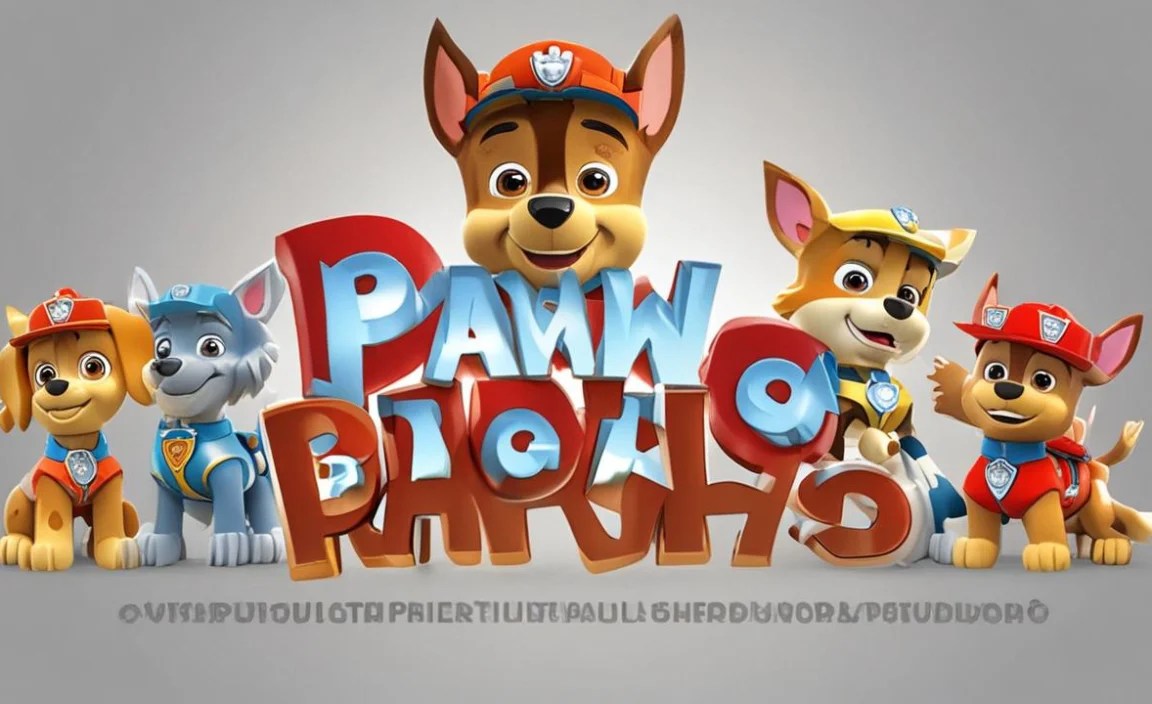
PAW Patrol, a Canadian animated TV series created by Keith Chapman, premiered on August 12, 2013, on Nickelodeon in the United States and on TVOKids in Canada on September 2, 2013.
The PAW Patrol logo features two distinct fonts. The “PAW” section uses a custom comic-style font, though similar alternatives include Grobold and Minnie. For a closer match, you can explore comic and cartoon font collections. The “PATROL” section likely uses Aachen, a bold slab serif font designed by Alan Meeks.
Paw Patrol Font Information
| Name | Paw Patrol Font |
| Style | Display |
| Designer | Based on the logo from the Paw Patrol TV series (original designer unknown) |
| Type | Cartoon Display Font |
Where Paw Patrol Font Is in Use
The Paw Patrol Font fits perfectly into playful and child-oriented design projects. Its vibrant and fun aesthetic makes it a favorite in the following applications:
- Children’s Merchandise
- Party Invitations
- Book Covers
- Promotional Posters
- TV Show Branding
- School Projects and Crafts
Paw Patrol Font Alternative
- Comic Sans MS
- KG Primary Penmanship
- Doodle Jump
- Baloo
- Fredoka One
- Luckiest Guy
- Bangers
- Varela Round
- Sniglet
- Bubblegum Sans
1. When Was The Paw Patrol Font Created?
The font gained recognition with the launch of the Paw Patrol series in 2013.
2. What Free Font Resembles The Paw Patrol Font?
Comica BD and Luckiest Guy resemble the Paw Patrol Font, offering similar cartoonish and playful elements.
4. Why Do Designers Choose The Paw Patrol Font?
Designers choose the Paw Patrol Font for its bold and playful aesthetic, making it perfect for children’s design projects.
5. What Are The Future Trends For Paw Patrol Font?
As Paw Patrol grows, the font will likely remain popular in children’s content, merchandise, and fan projects.